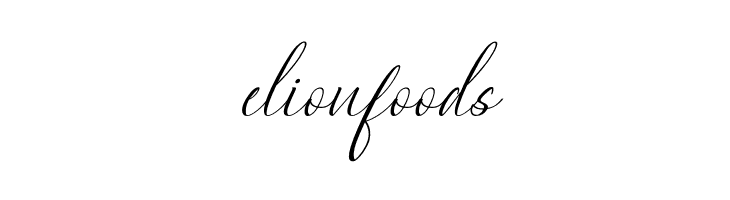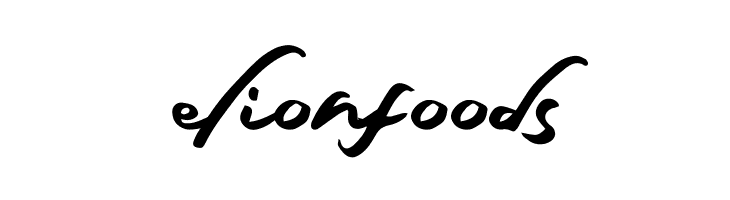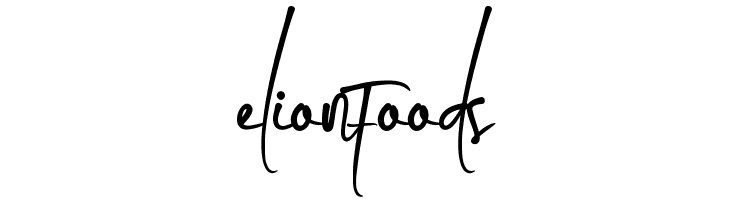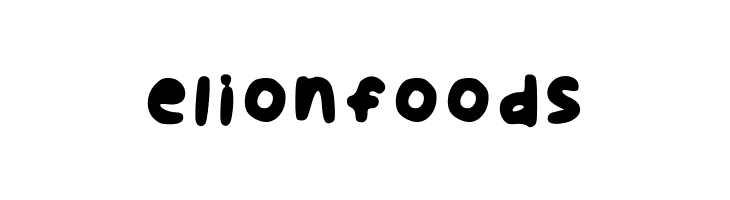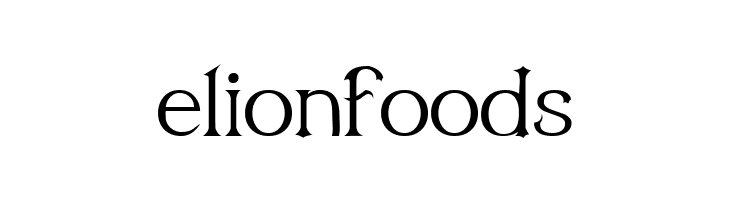
Expressive handwritten script with fluid, connected strokes.
A bold, gothic blackletter font with sharp, dramatic strokes.
Bold, energetic handwritten script with fluid, connected strokes.
A refined, cursive script with tall, slender characters and a handwritten feel.
A refined, italic script font with a handwritten, calligraphic style.
A decorative, high-contrast script font with elegant, flowing strokes.
Casual handwritten script with smooth, flowing strokes.
Casual handwritten script with smooth, flowing strokes and slight slant.
An ornate, calligraphy-inspired font with intricate detailing and a classic yet modern appeal.
A playful, monster-themed decorative font with cartoonish eyes and teeth.
A playful, bold, and quirky hand-drawn font with a whimsical style.
A bold, angular font with a geometric style, perfect for striking headlines.
A modern-vintage serif font with sharp serifs and elegant curves.
A playful, handwritten font with bold, rounded characters.
A bold, hand-drawn font with dynamic and irregular strokes.
An artistic and elegant font with unique curves and extensions.
A bold, geometric font with sharp angles and a modern design.
A vintage, typewriter-inspired font with a bold, distressed look.
A pixelated, retro-style font with a digital, blocky appearance.
A bold, distressed font with a cracked texture and rugged appearance.
A modern, geometric font with rounded edges and consistent stroke width.
A playful, hand-drawn font with tall, narrow letters and a whimsical style.